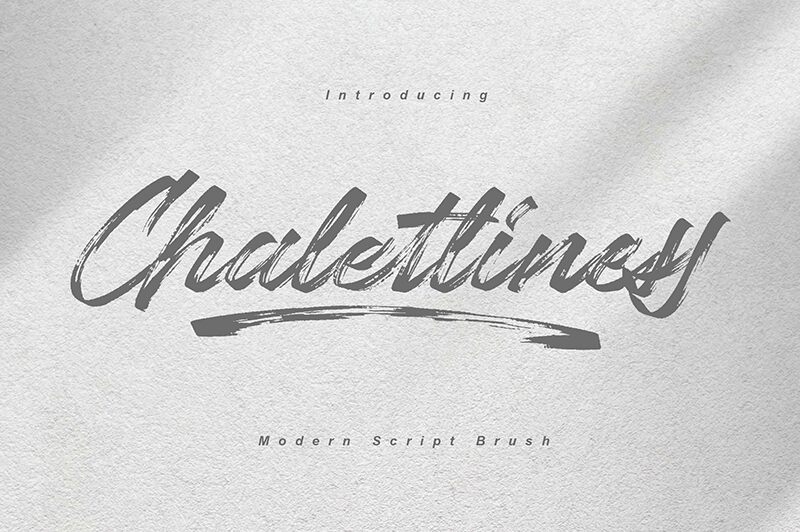
Chaletliness
Chaletliness, the semi-light brush and marker font typeface created by Madhaline Studio, is the perfect choice for creative projects that require a touch of personality and uniqueness. Its playful yet elegant style makes it ideal for designs that need to stand out, such as logos, branding materials, social media graphics, or even product packaging. With its semi-light weight, Chaletliness is versatile enough to work on both small and large-scale designs. Whether you're looking to add a whimsical flair or a sophisticated edge to your project, this font typeface will elevate your design game and make your content visually striking.